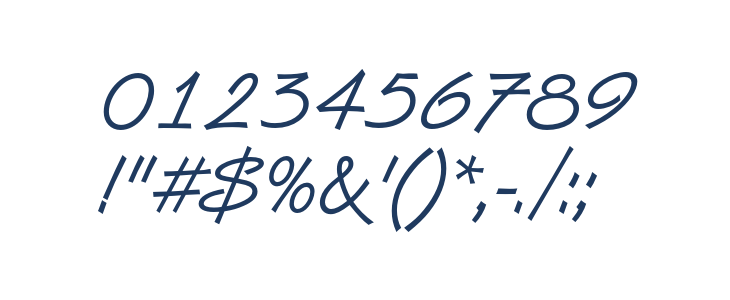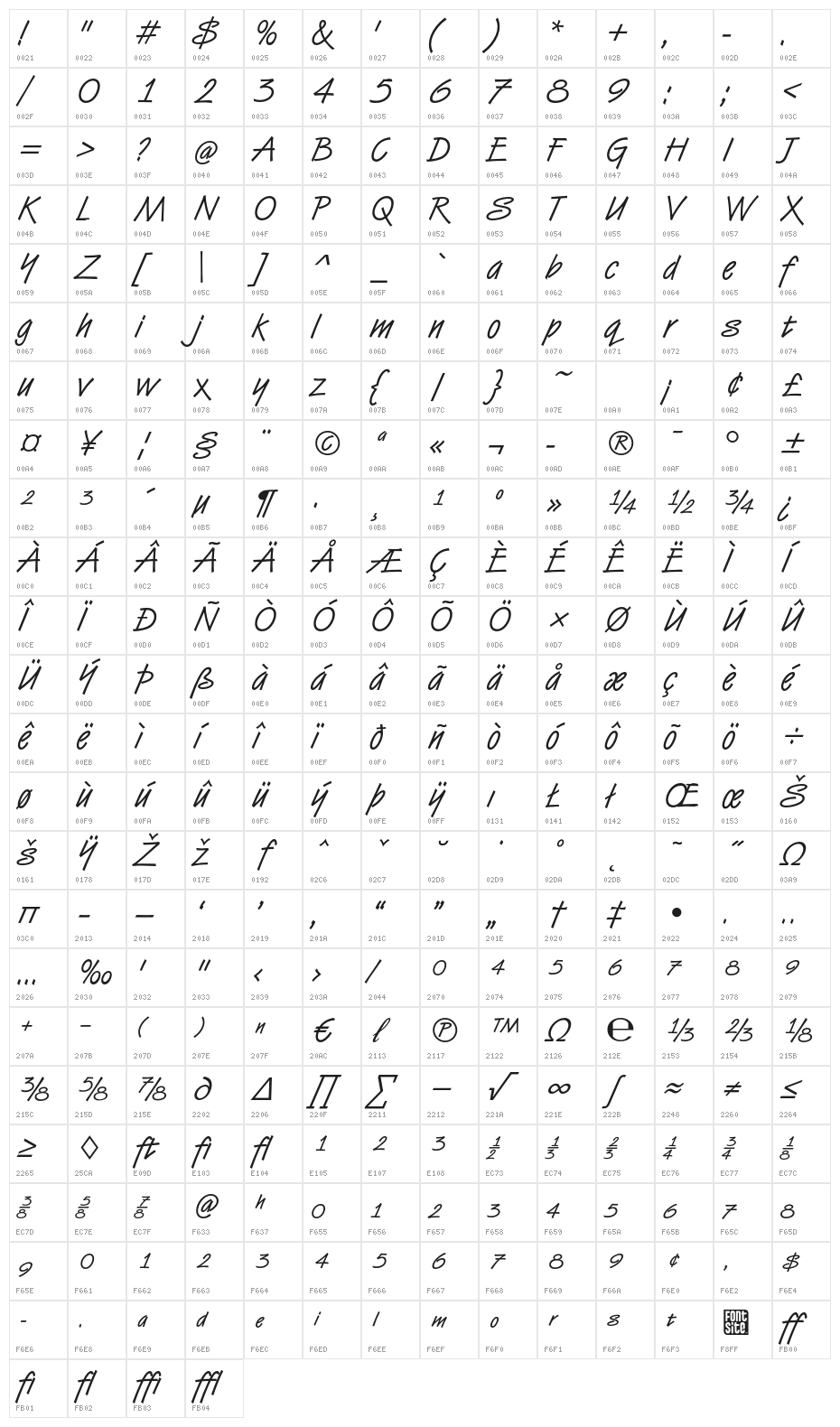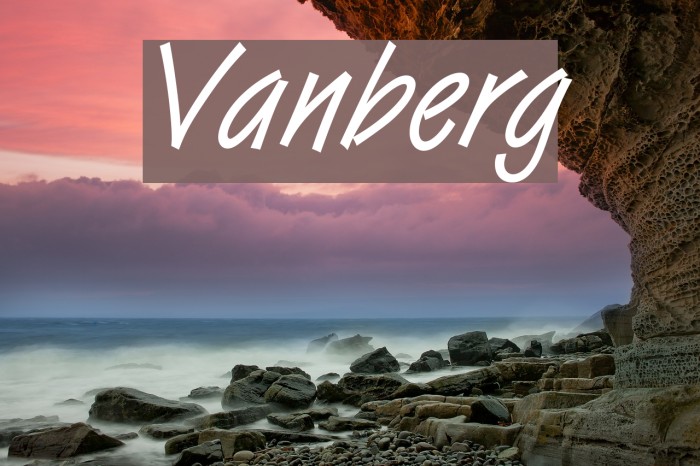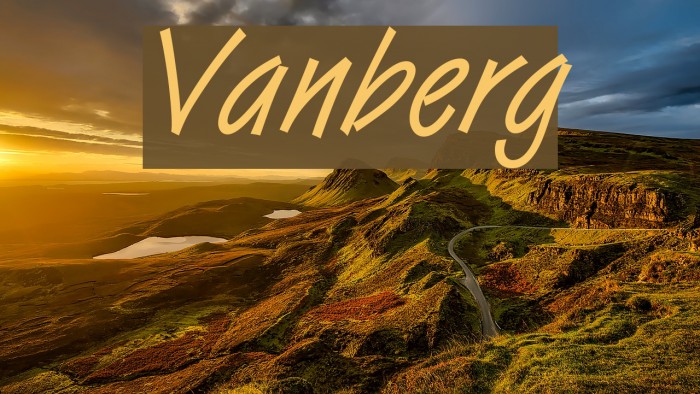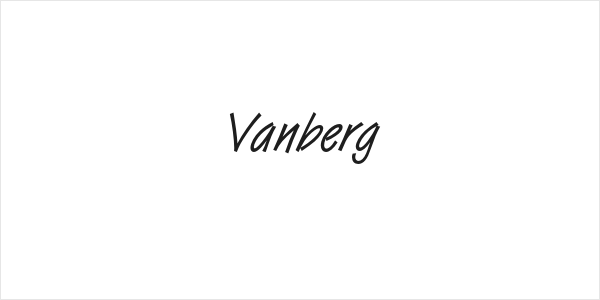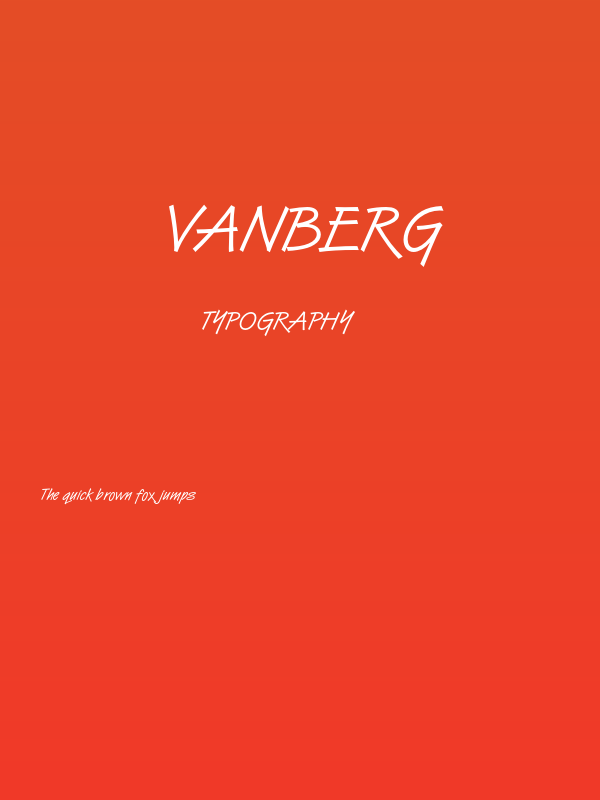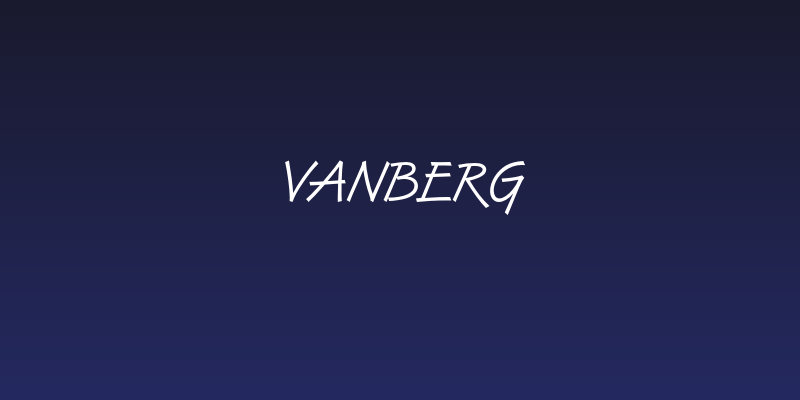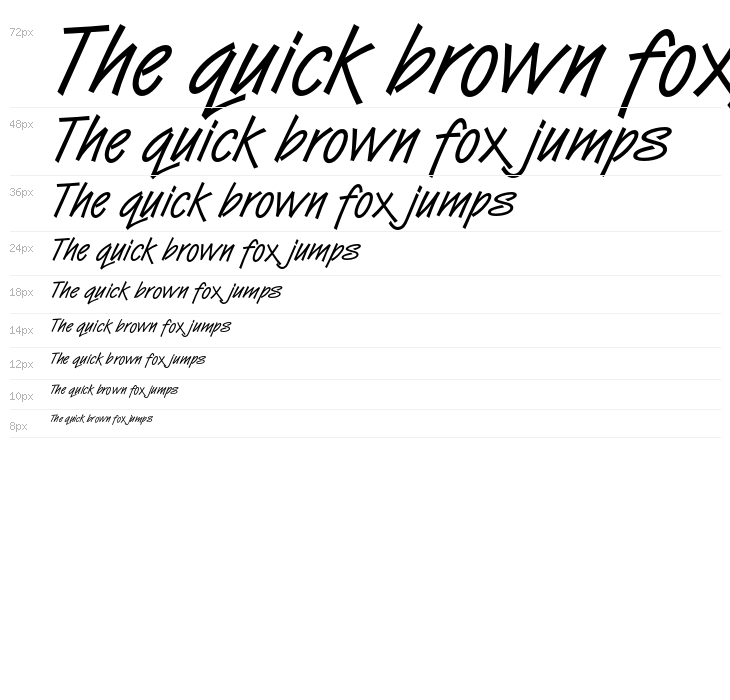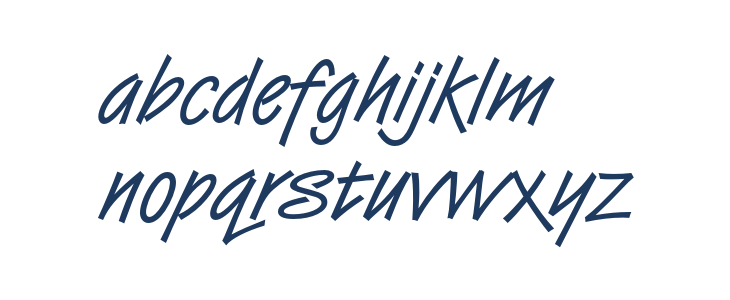
Vanberg Font
Vanberg Description
This font features a dynamic and energetic script style, characterized by its slanted, cursive letters that convey a sense of motion and fluidity. The uppercase letters are bold and slightly angular, giving them a modern edge, while the lowercase letters maintain a consistent flow with rounded edges. The numerals are clear and legible, matching the overall style of the alphabet. Special characters are well-integrated, maintaining the font's cohesive look. The strokes are consistent in thickness, providing a balanced appearance across all characters.